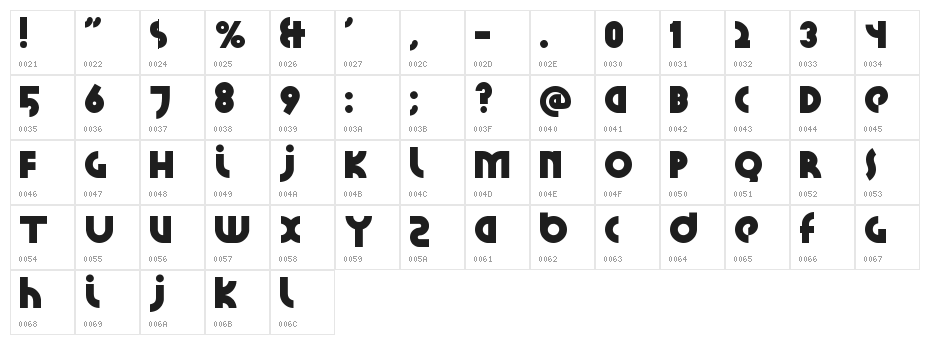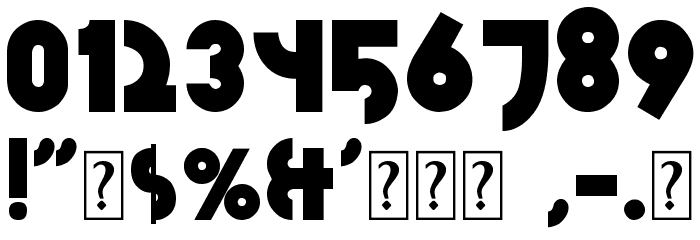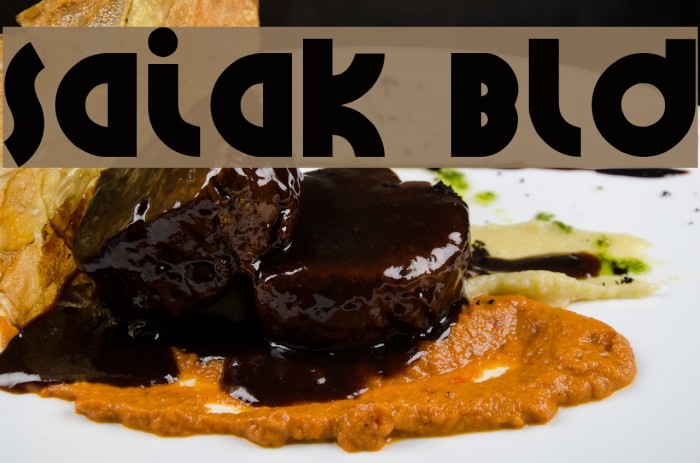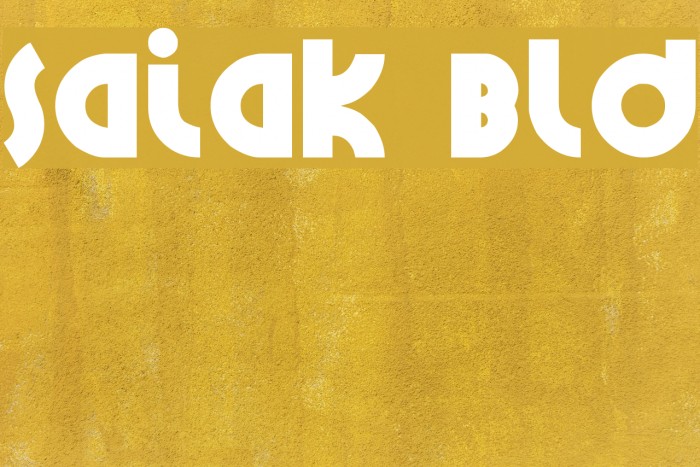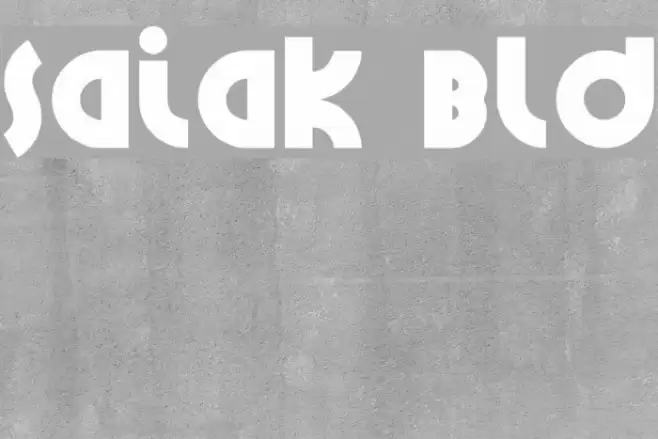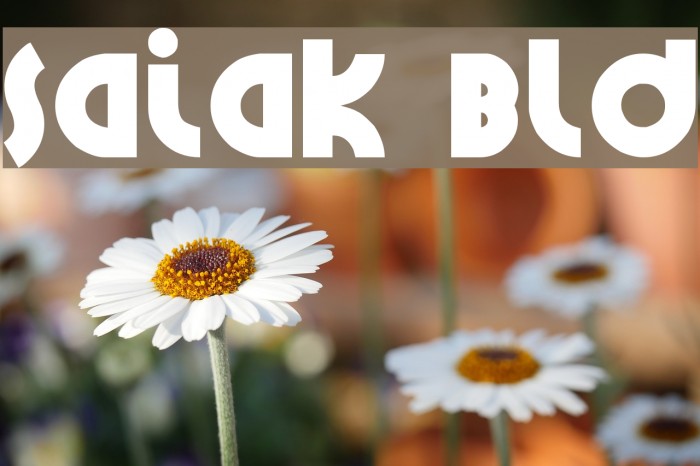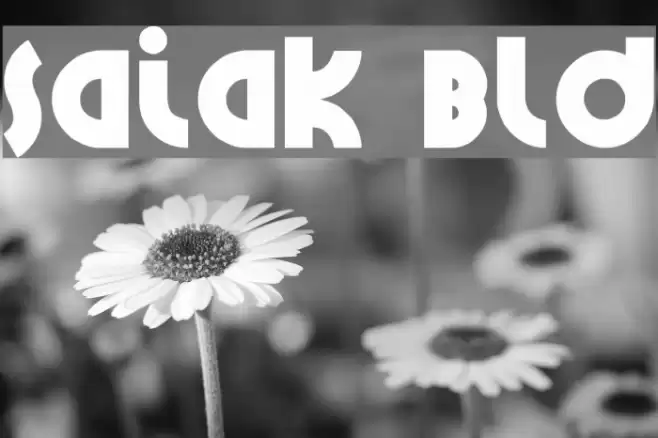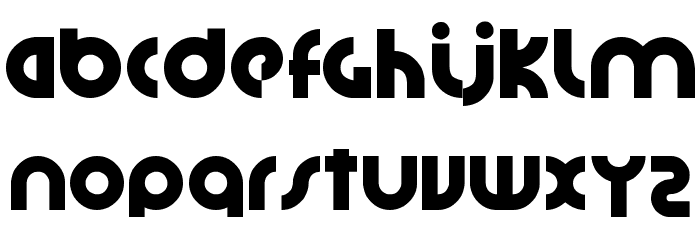
Santiako Bold Font
Santiako Bold Description
This bold, decorative font features a unique geometric design with a modern flair. The characters are crafted with a combination of sharp angles and smooth curves, creating a striking visual impact. The uppercase letters exhibit a strong presence with their thick strokes and distinctive shapes, while the lowercase letters maintain a consistent style that complements the uppercase. The numerals are bold and easily readable, designed to stand out. Special characters are creatively styled, adding to the font's overall aesthetic appeal. This font is ideal for projects that require a bold statement and a modern touch.
| Proposed Projects | Ideal for branding, posters, headlines, and any design requiring a bold, modern look. |